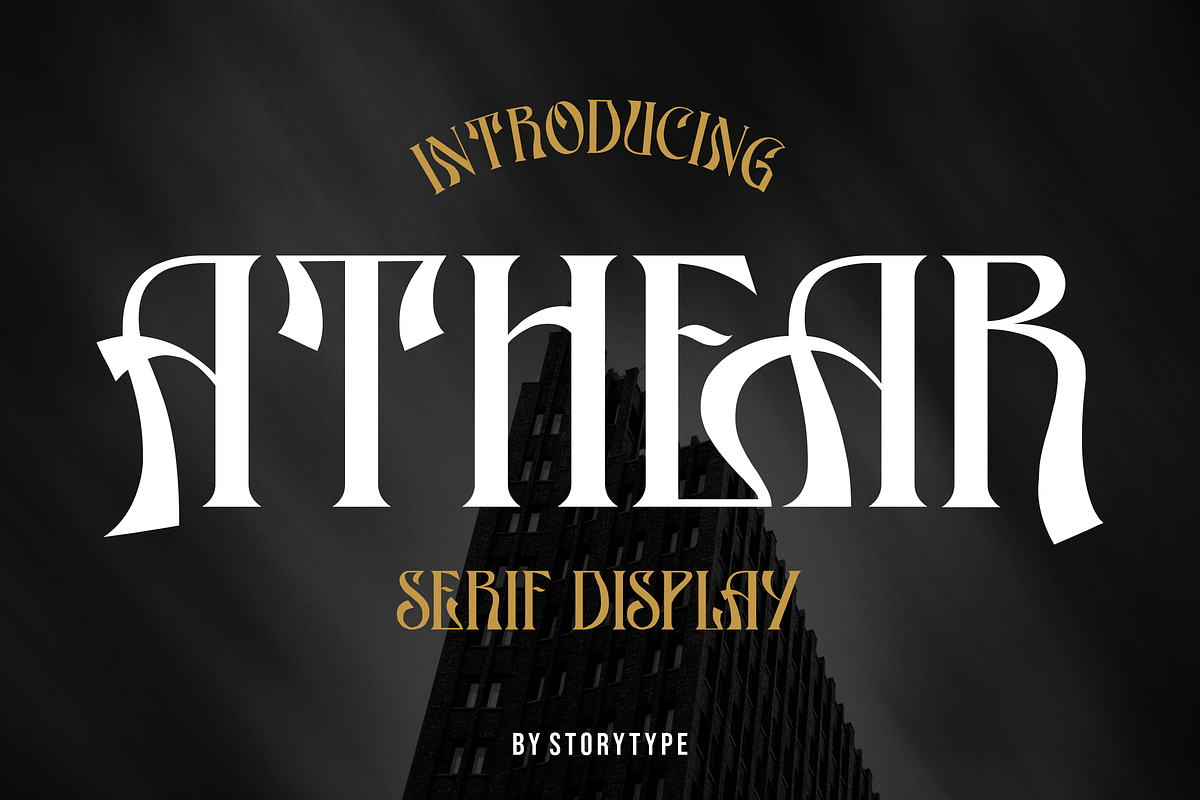
Athear Serif Display Font Free Download
The Athear Serif Display Font Free Download is a bold and striking serif typeface designed for high-impact display projects. Perfect for creating eye-catching headlines, logos, posters, branding, and more, this font combines strong, elegant serifs with a modern flair, making it ideal for any creative project that needs a touch of sophistication. Please note, for commercial use, a license must be purchased. You can download it for free for testing purposes.
With its distinctive letterforms and strong presence, the Athear Serif Display Font Free Download is perfect for projects that require bold and stylish typography. Whether you're designing for luxury brands, print advertisements, or digital content, this font will add an authoritative and polished feel to your work.